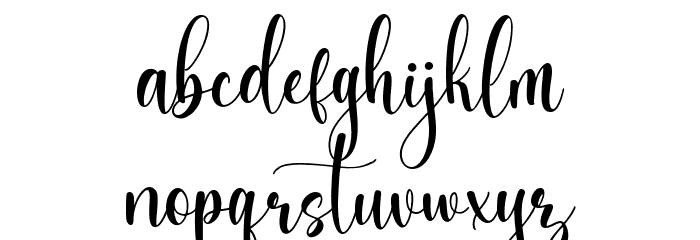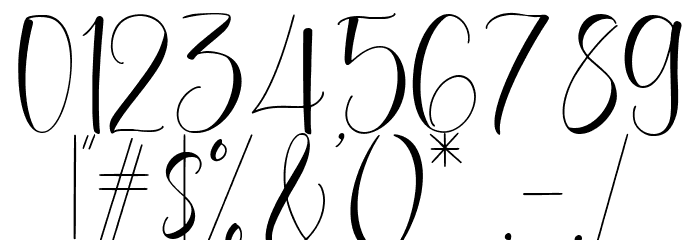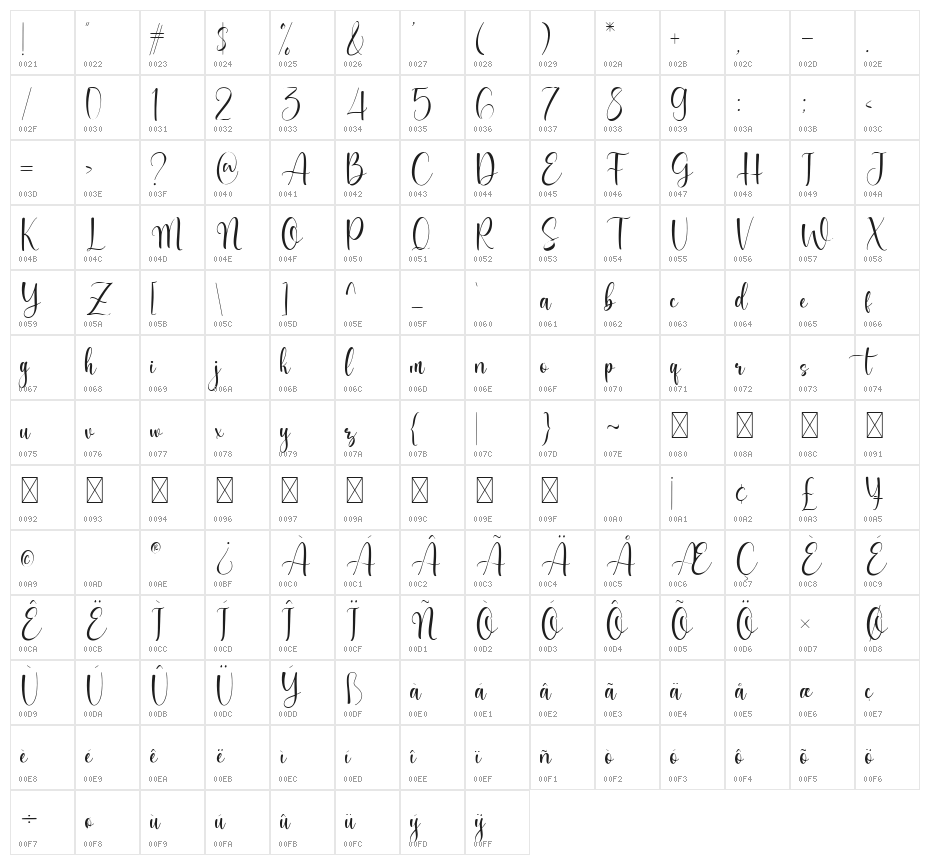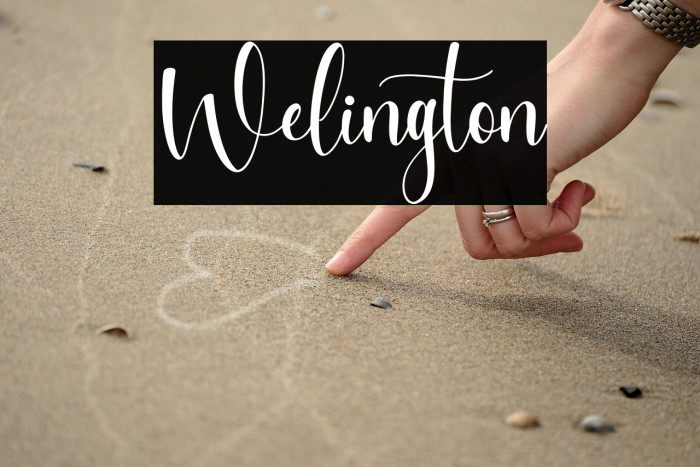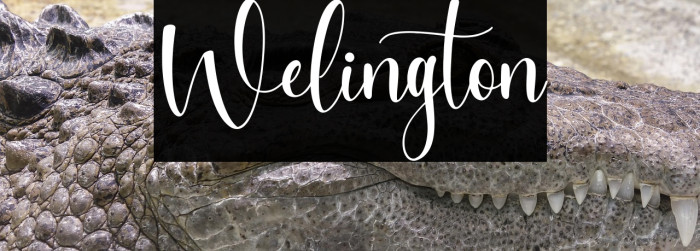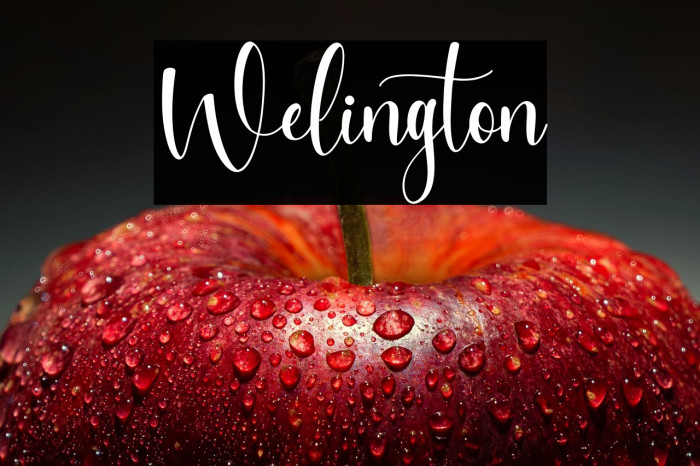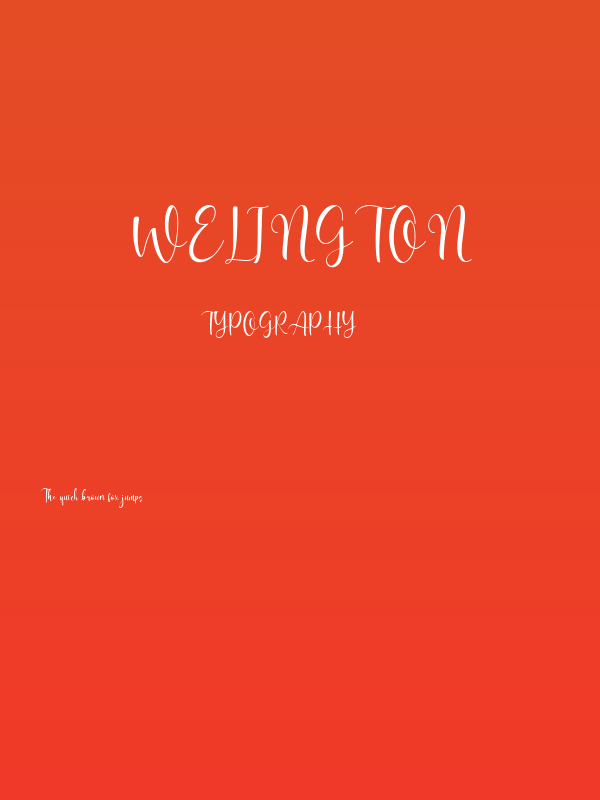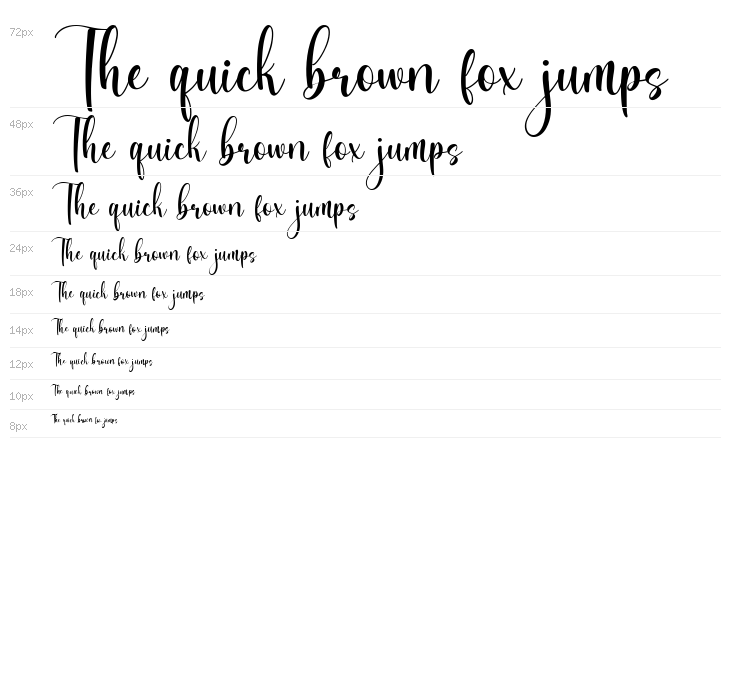
Welington Font
This font features an elegant and flowing script style, characterized by its smooth, cursive strokes and graceful curves. The uppercase letters exhibit a refined and sophisticated appearance, with elongated lines and subtle flourishes that add a touch of elegance. The lowercase letters maintain a consistent flow, enhancing readability while preserving the decorative nature of the script. Numbers and special characters are designed with the same attention to detail, ensuring a cohesive look across all glyphs. This font is ideal for projects that require a touch of sophistication and charm.
An elegant, flowing script font with graceful curves and refined strokes.
- Category: Script
- Overall Style: Elegant